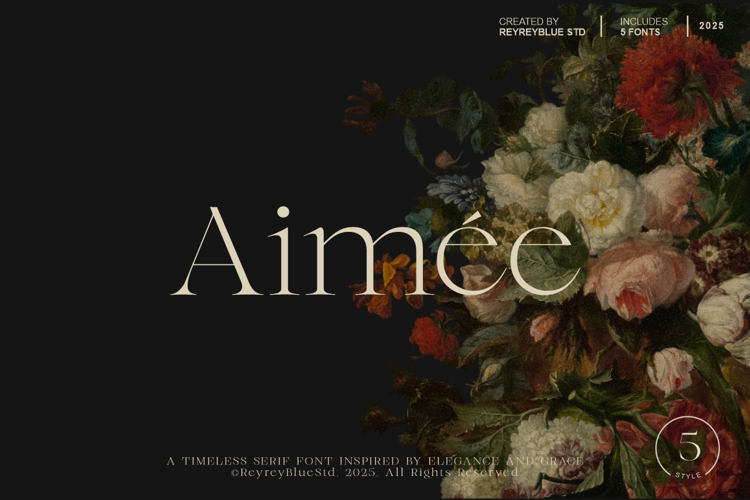
Aimée Font
Aimée is a timeless and elegant serif font inspired by classical beauty and modern editorial design. Featuring refined curves, high contrast strokes, and graceful details, Aimée is perfect for projects that demand sophistication — from wedding designs and logos to fashion editorials and luxury branding.